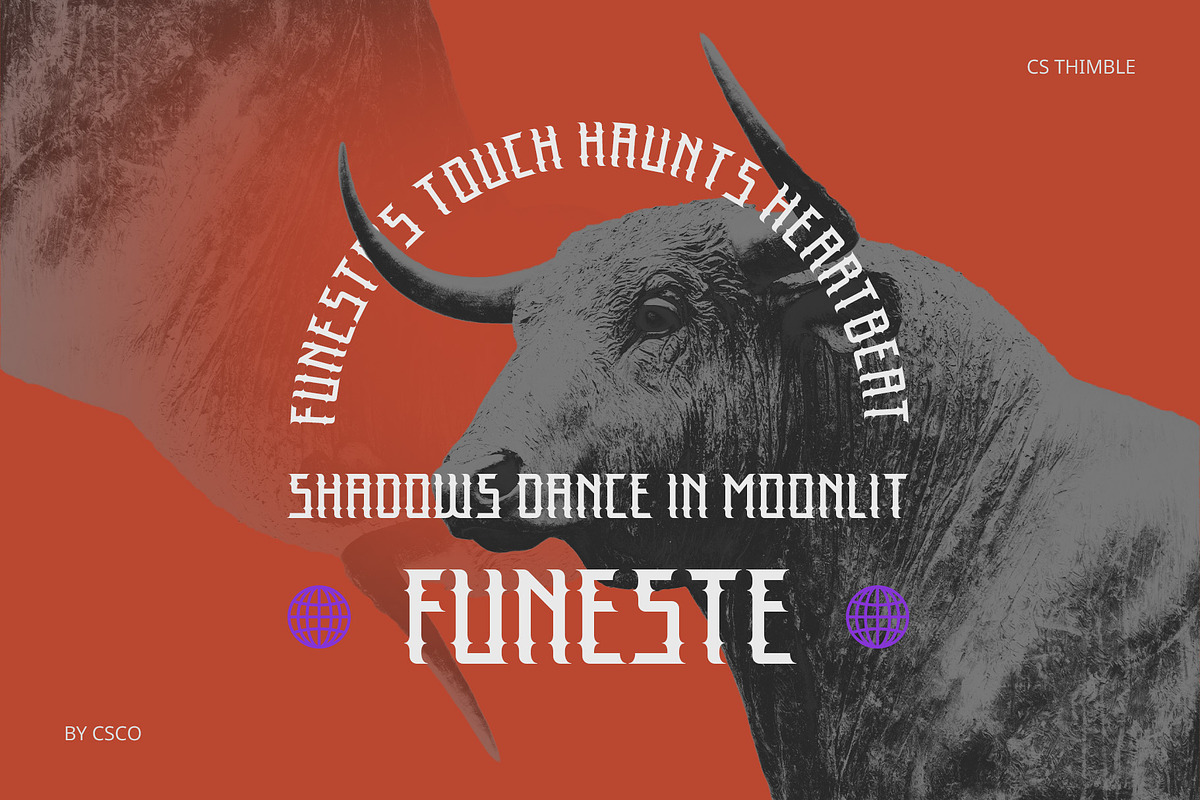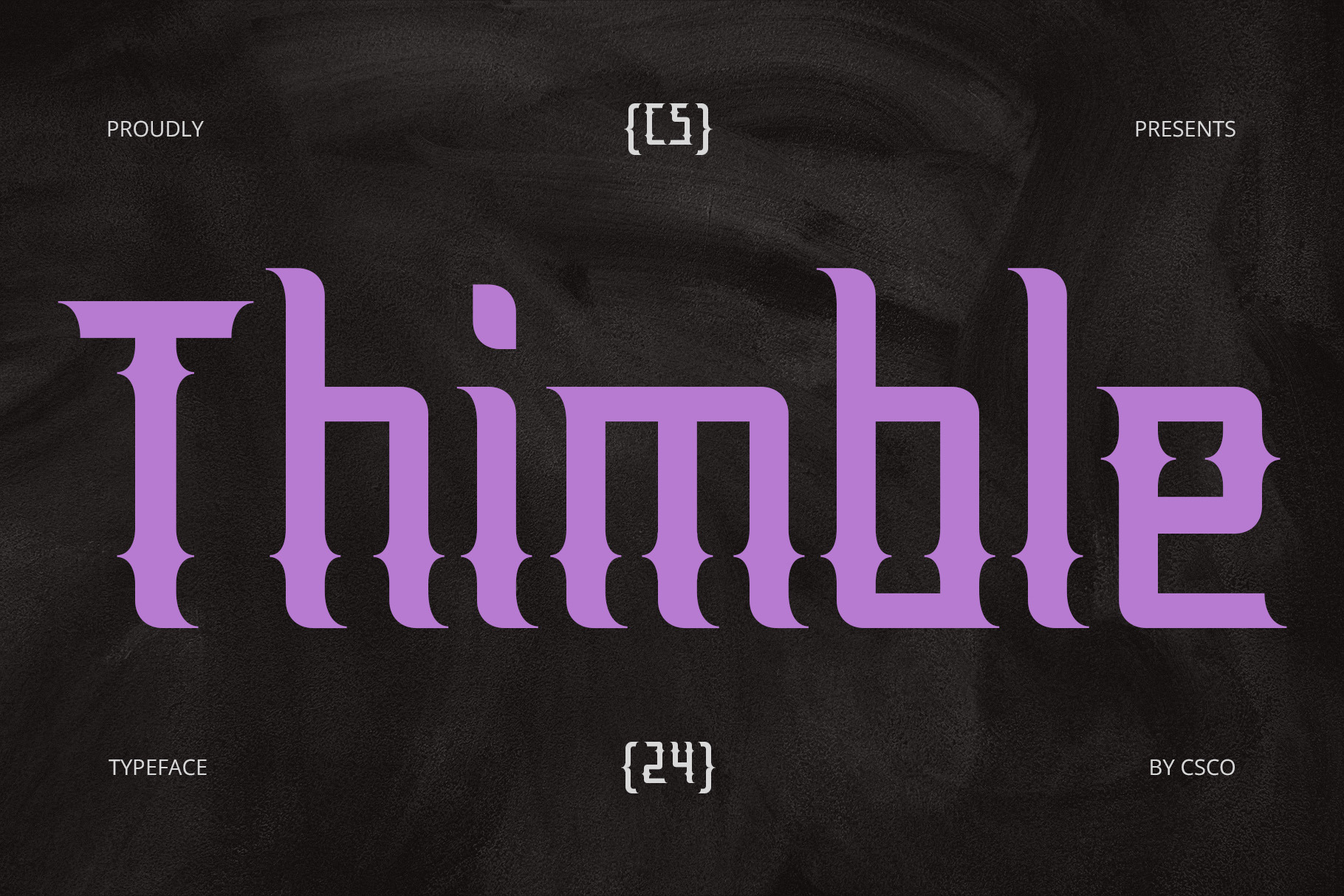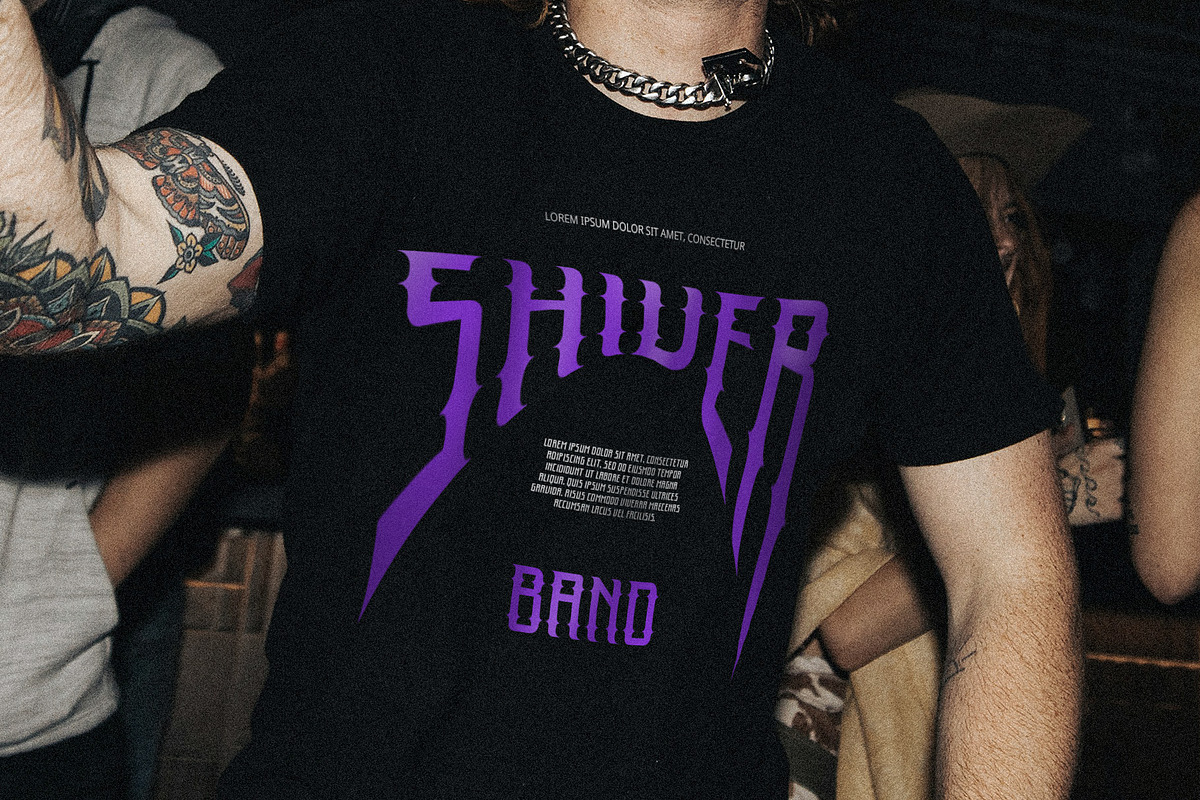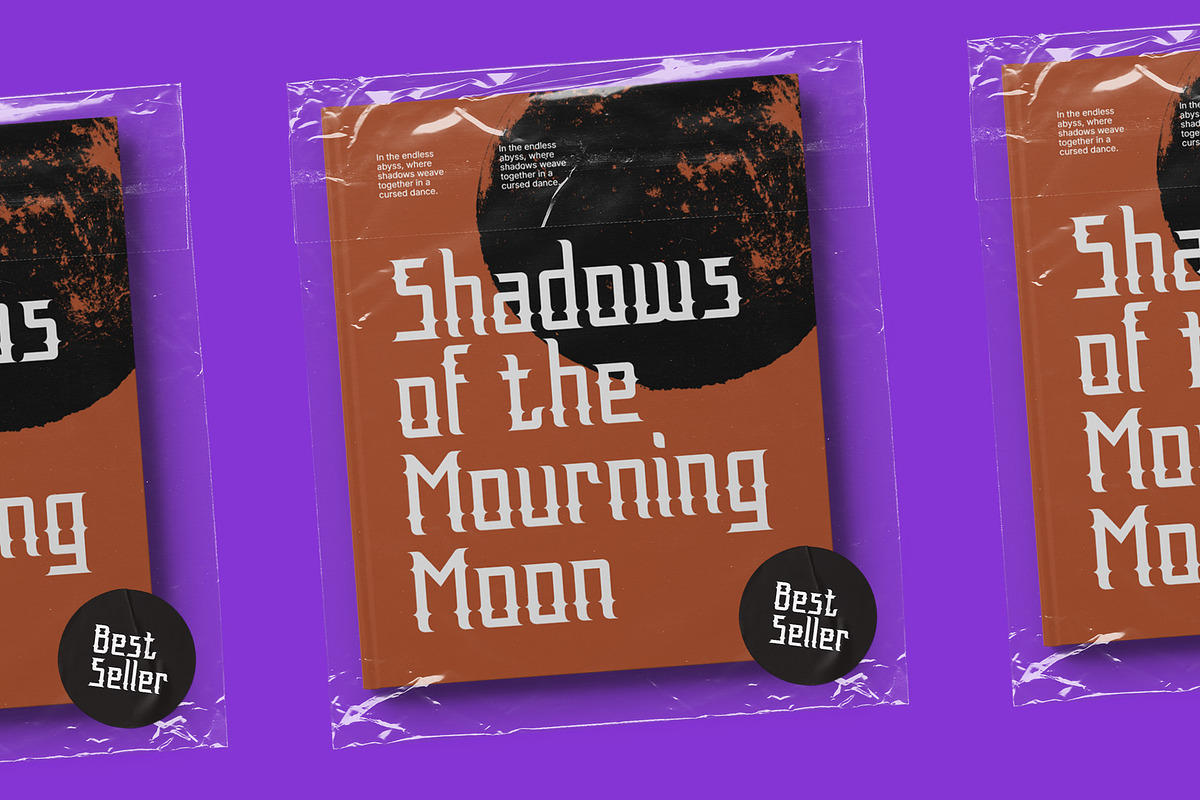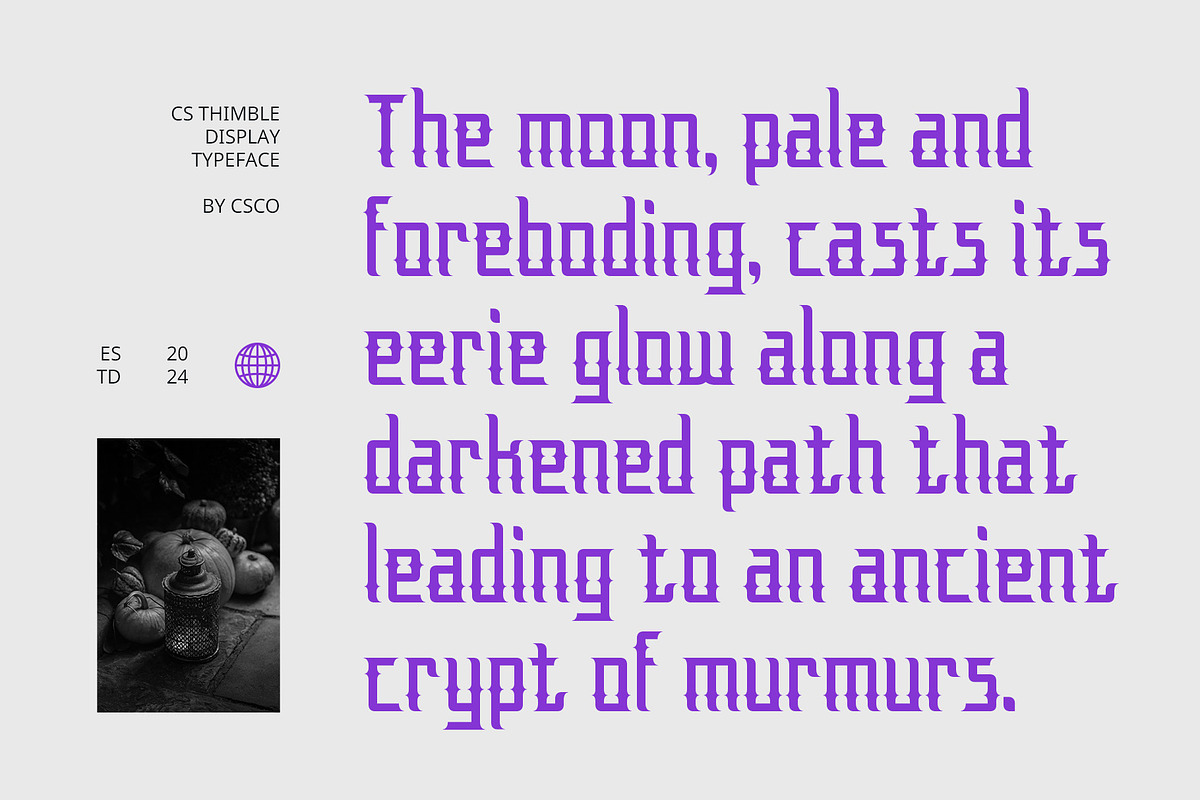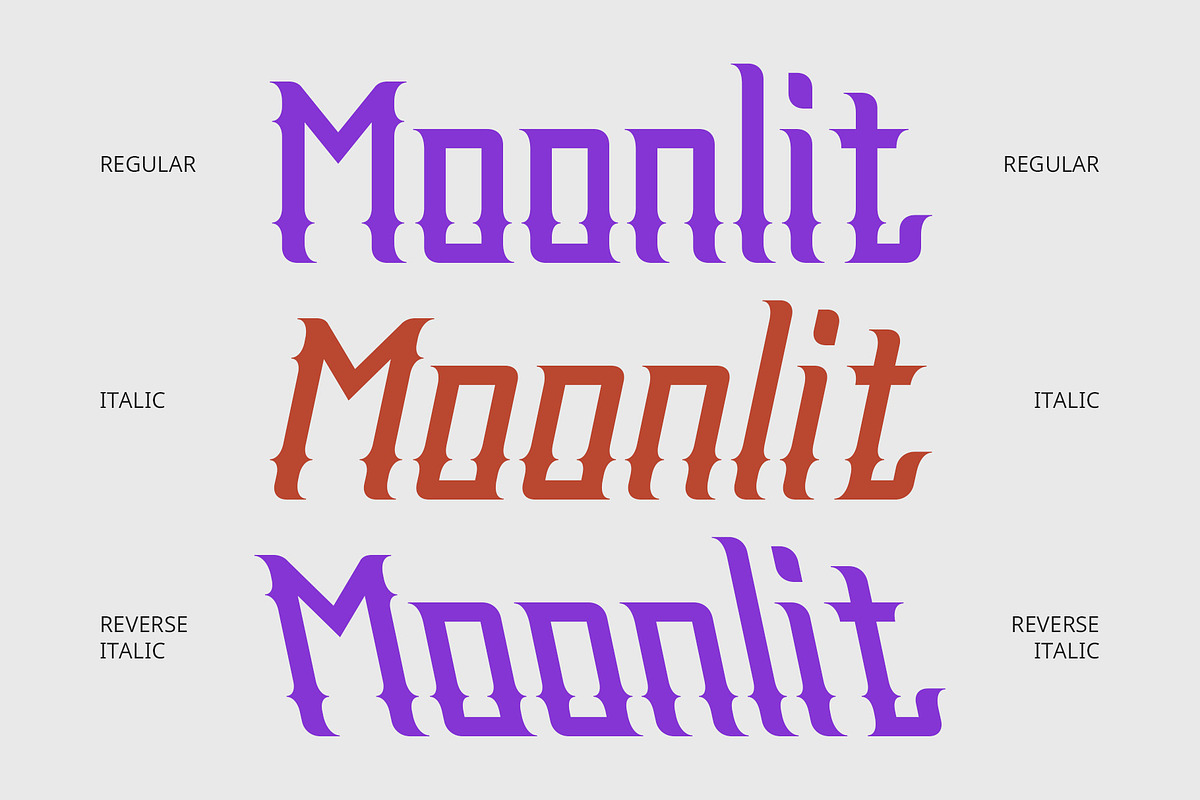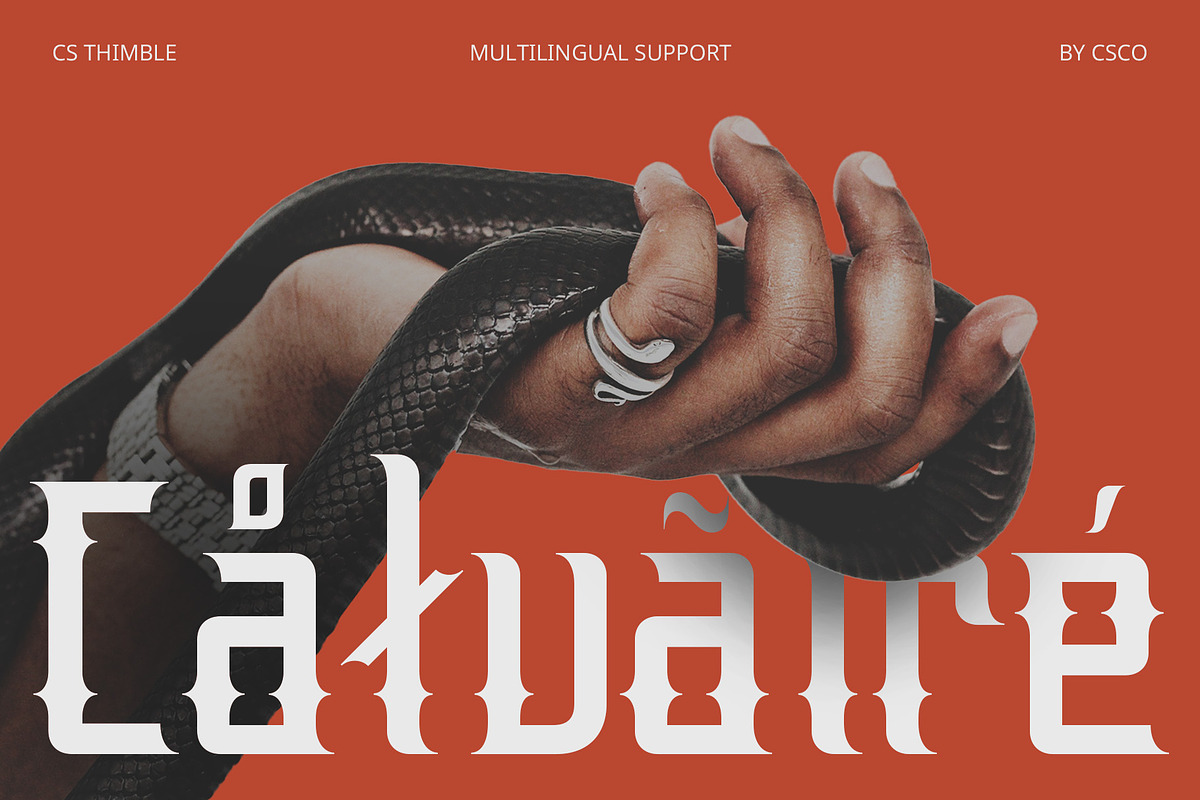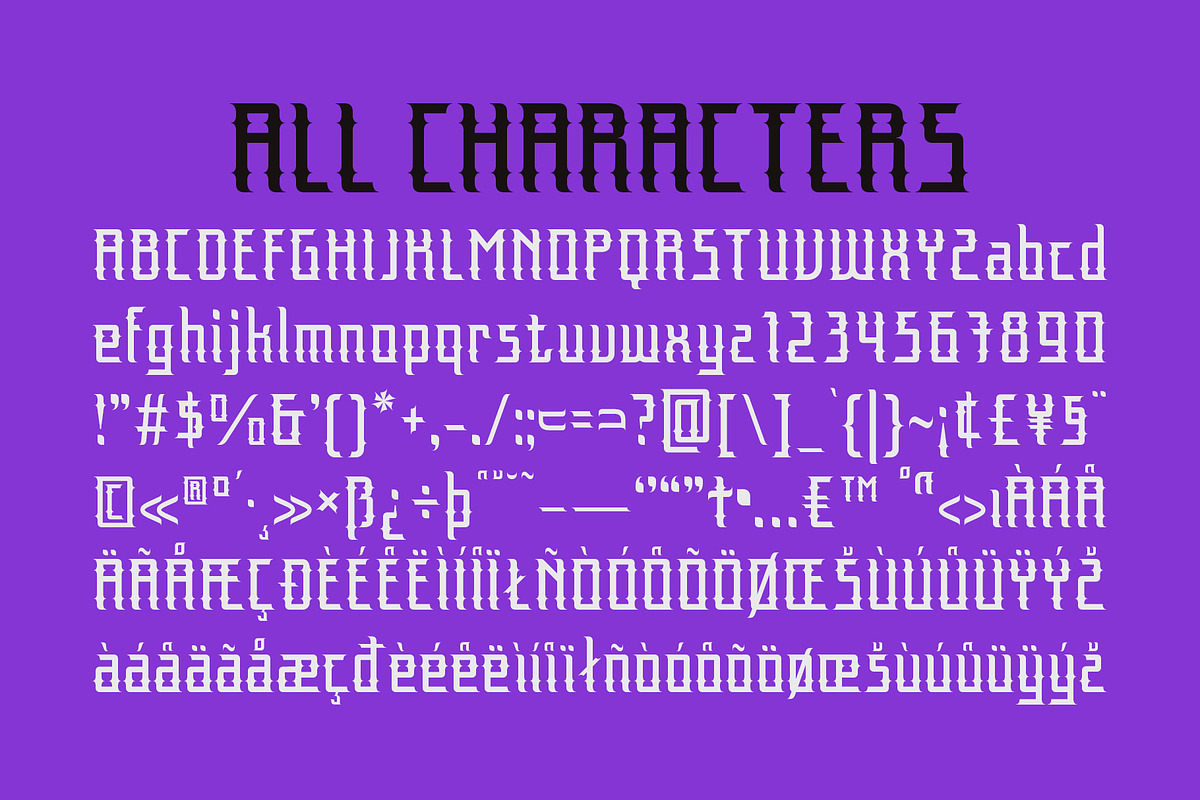
CS Thimble – Gothic Font
Mystical Elegance CS Thimble is a stunning gothic display font that transports viewers to a realm of mystery and medieval artistry. Its intricate and ornamental letters are designed with rich details and smooth curves, capturing the essence of traditional gothic script. The combination of thick and thin lines showcases a unique balance between elegance and strength, creating a dramatic visual impact that is sure to captivate any audience.
Medieval Inspiration Drawing inspiration from the enchanting beauty of medieval handwriting, CS Thimble is the perfect choice for designs that aim to evoke dark or fantasy themes. Whether you’re creating themed event invitations, movie posters, or book covers, this font brings a touch of the extraordinary to your projects. Its ornate design elements provide an authentic feel, immersing viewers in a world of intrigue and imagination.
Versatile Applications The versatility of CS Thimble allows it to shine in various creative contexts. It’s ideal for fantasy literature, where its dramatic flair complements storytelling, or for Halloween events, where its gothic charm enhances the eerie atmosphere. Additionally, this font is perfect for branding that seeks to convey a sense of heritage and depth, appealing to audiences who appreciate the allure of historical designs.
- CS Thimble Regular
- CS Thimble Italic
- CS Thimble Reverse Italic